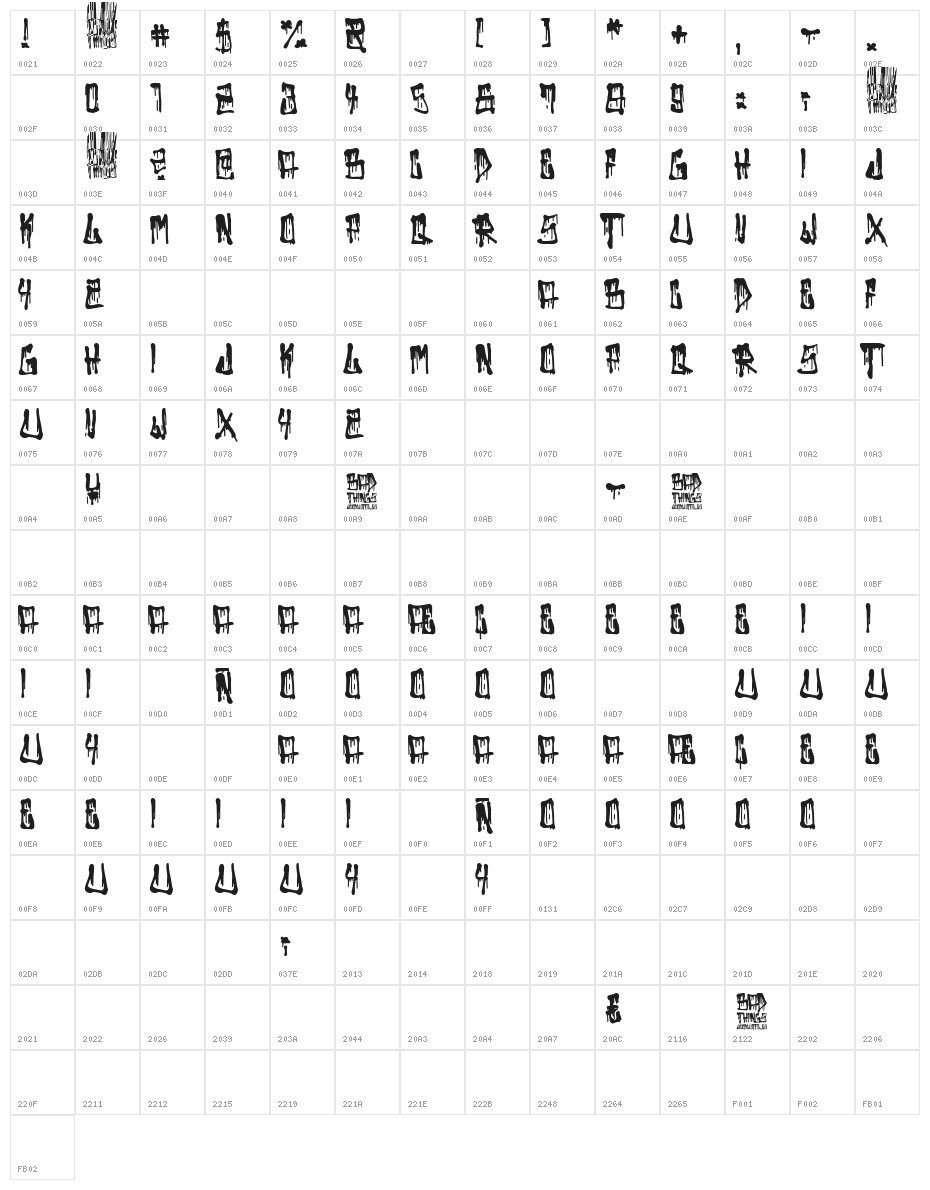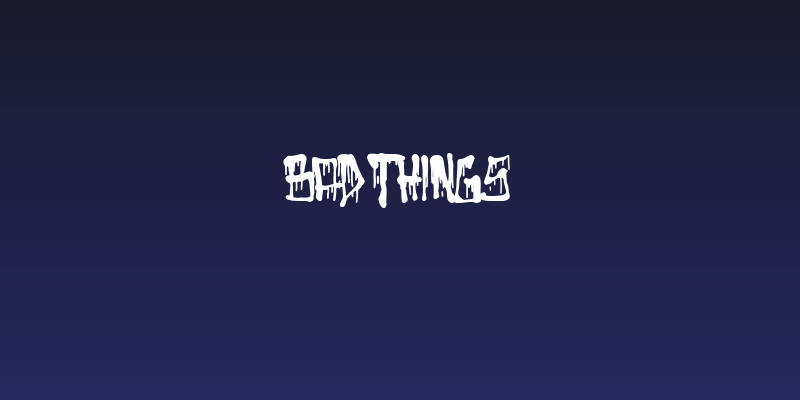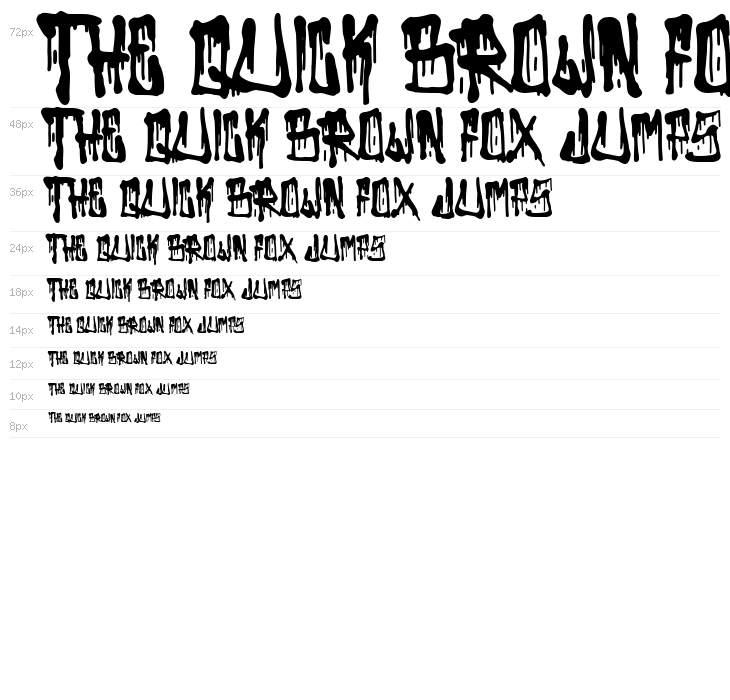
Bad Things Font
✎ Graffiti
| Categorías | Graffiti |
| Proyectos propuestos | Ideal for horror-themed posters, edgy album covers, Halloween decorations, or street art-inspired designs. |